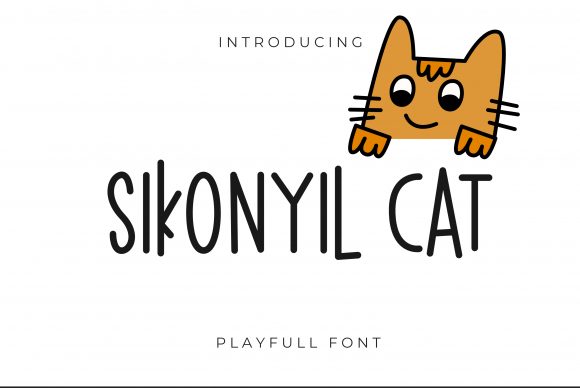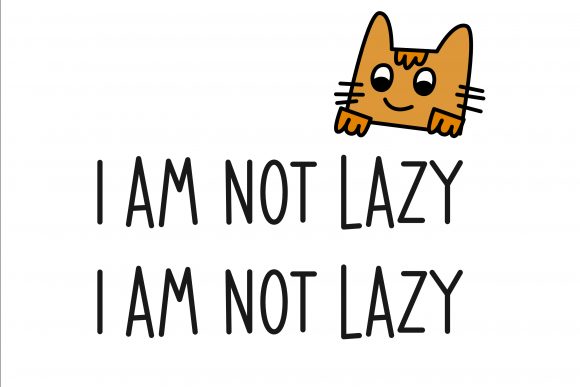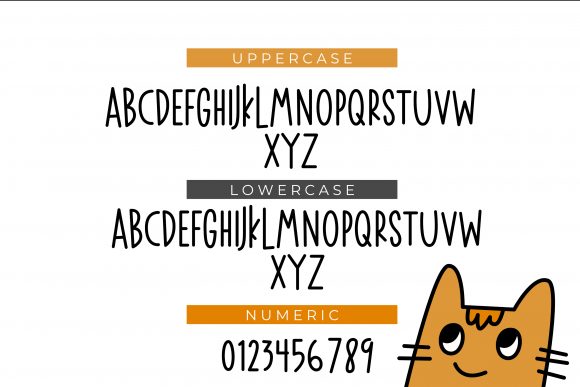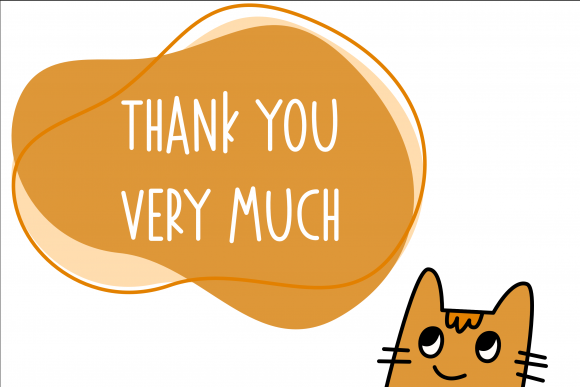
About Sikonyil Cat Font
Sikonyil Cat is a cute handwritten font. Its sweet and full of life style makes this font a wonderful choice for brightening up your designs.